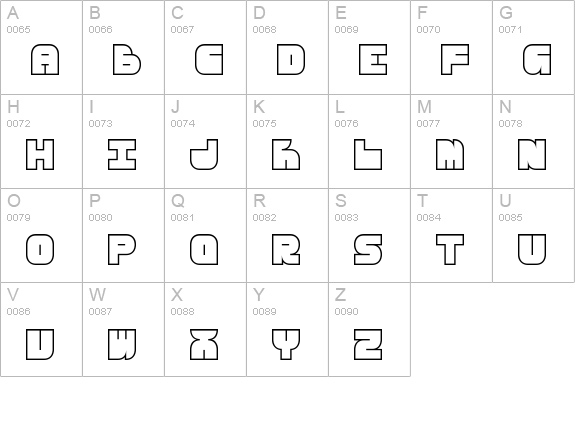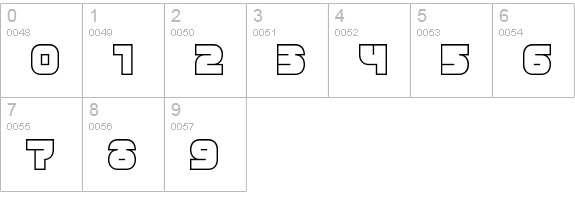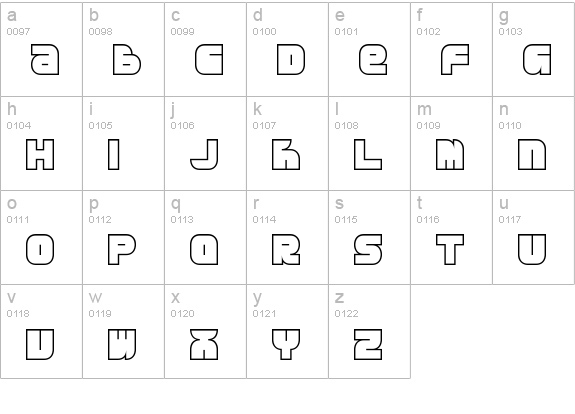
Breakbeat BTN Outline is a dynamic and modern font that brings a fresh energy to any design project. This font features bold outlines and sharp edges that exude a sense of movement and rhythm. With its unique style, Breakbeat BTN Outline is perfect for creating eye-catching headlines, posters, and logos that stand out from the crowd. The best part is that Breakbeat BTN Outline is available for free download at FontsMarket.com. Whether you're a professional designer looking for a new font to add to your collection or a hobbyist exploring different typography options, Breakbeat BTN Outline is a must-have font that will elevate your designs to the next level. Download it today and unleash your creativity with this exciting and versatile typeface.